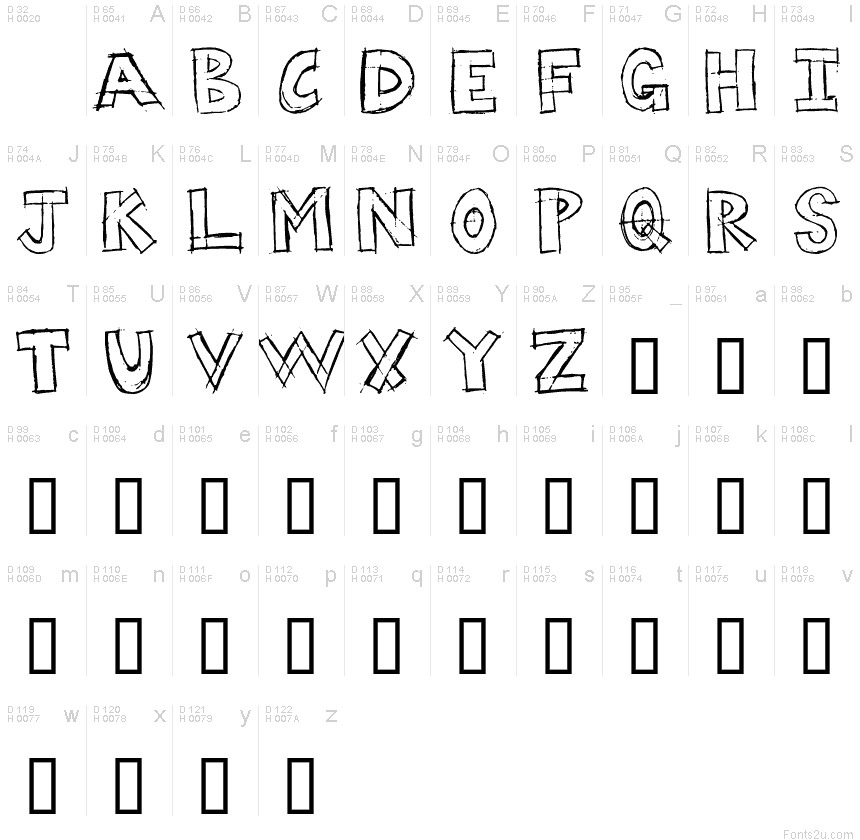
Dumpster Diver
Dumpster Diver font by Sporkthug is a free outlined display typeface with a scrappy, hand-scrawled edge. The chunky caps feel like they were traced with a battered marker, then left a little wobbly on purpose—uneven, gritty, and full of garage-band energy. Those sketchy outlines keep it loud without turning into a solid block.
Using Dumpster Diver, you’ll get instant attitude on punk posters, skate zines, DIY event flyers, horror-comedy titles, game-jam logos, sticker sheets, and album or mixtape covers. This free font also plays nice in big sizes where the rough linework can breathe; pair it with a clean, boring sans for the supporting text to make the chaos pop.